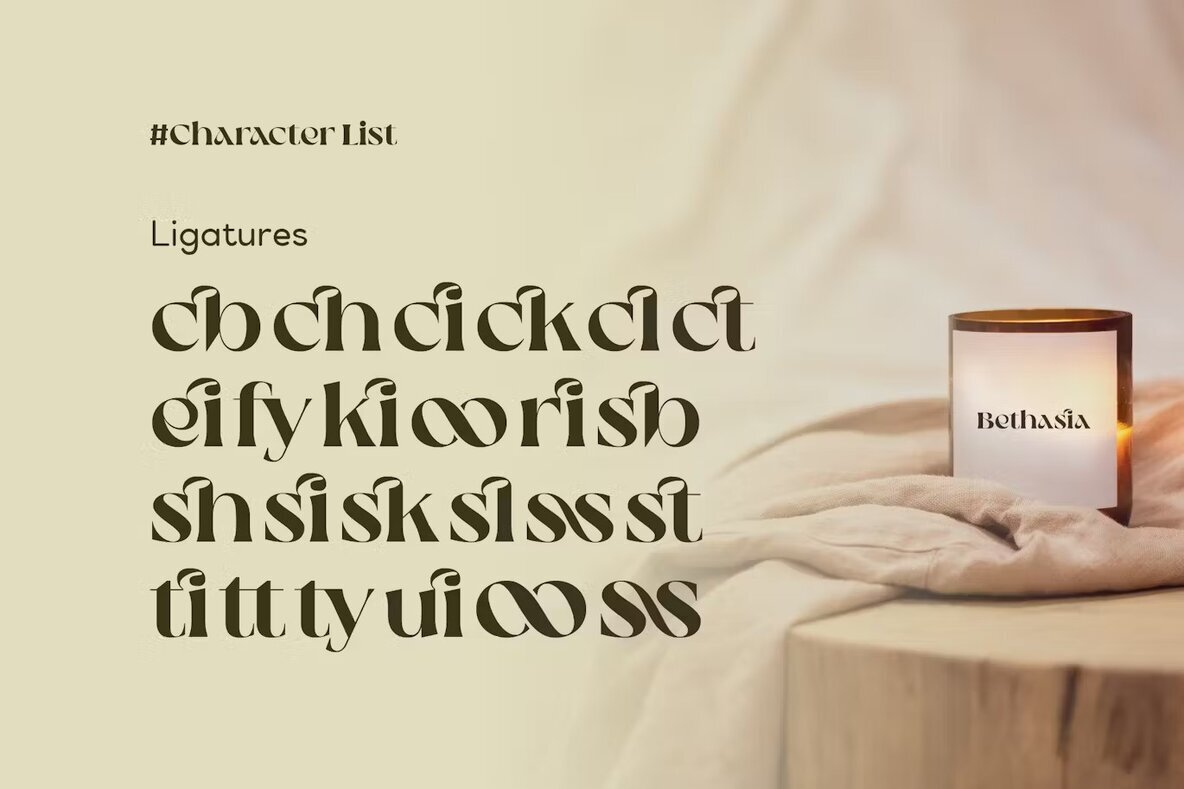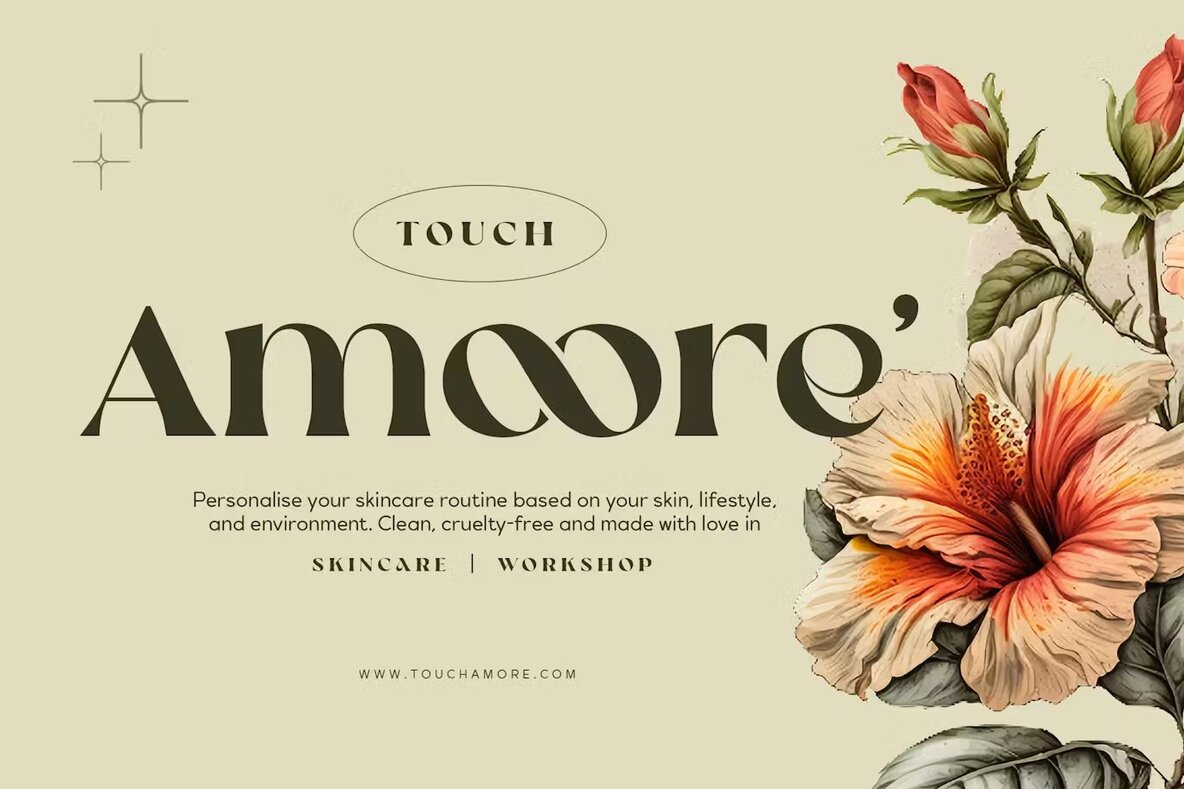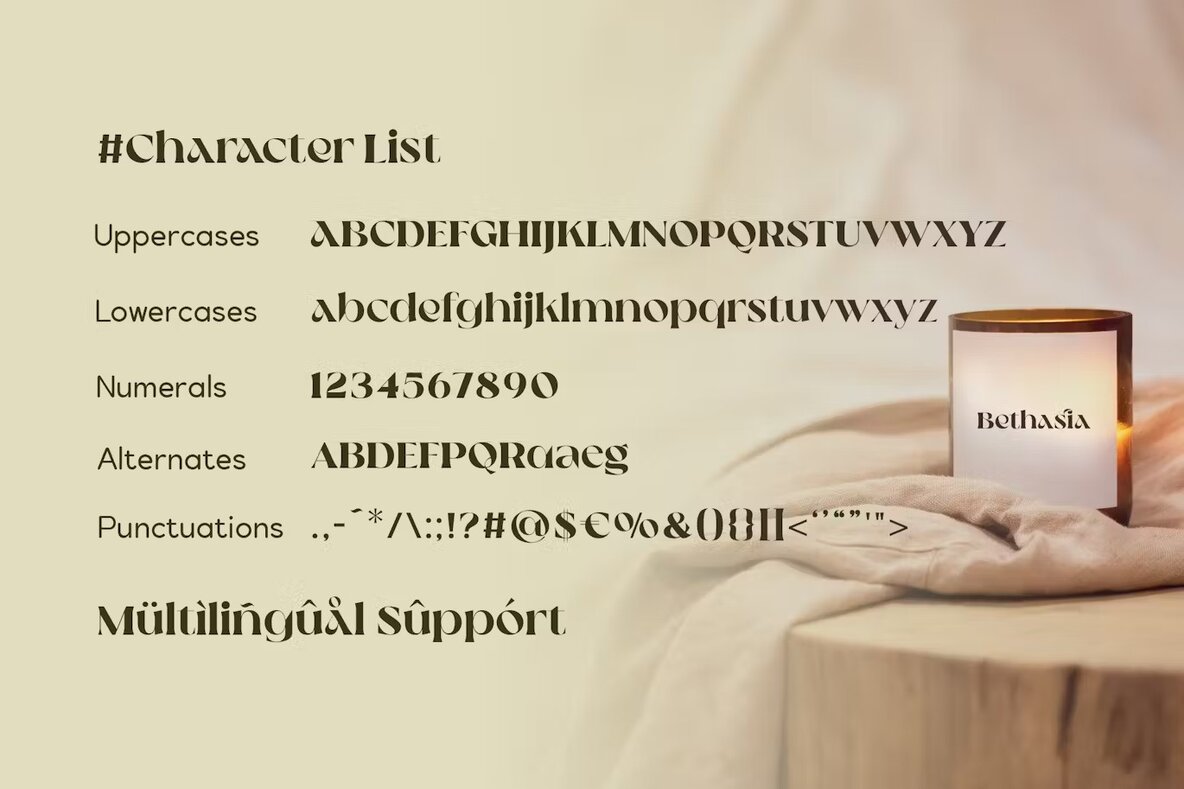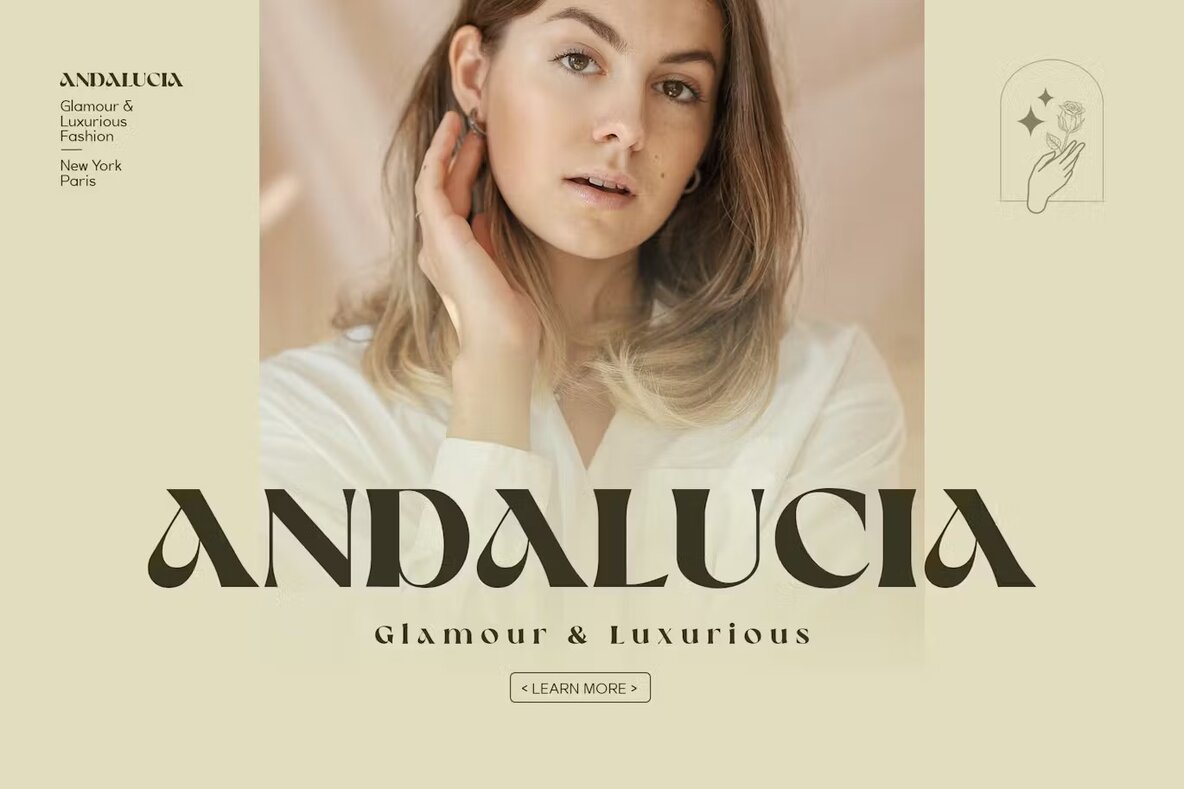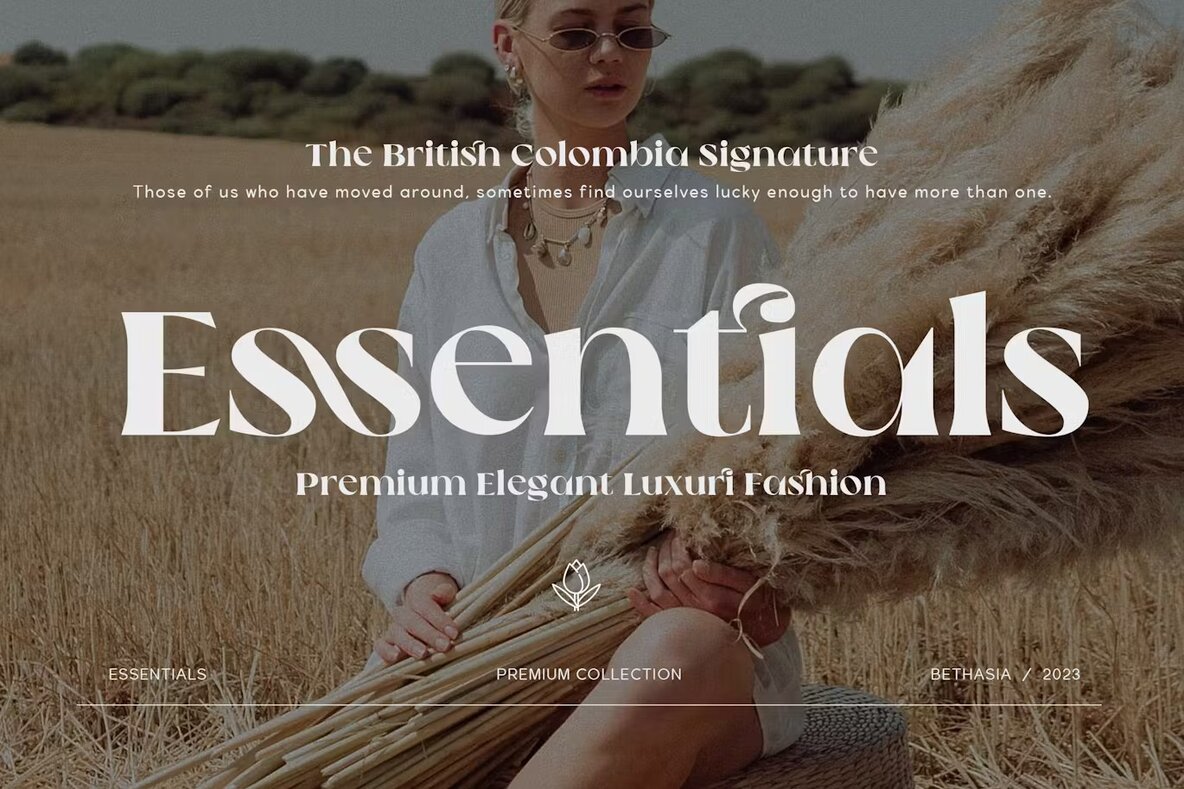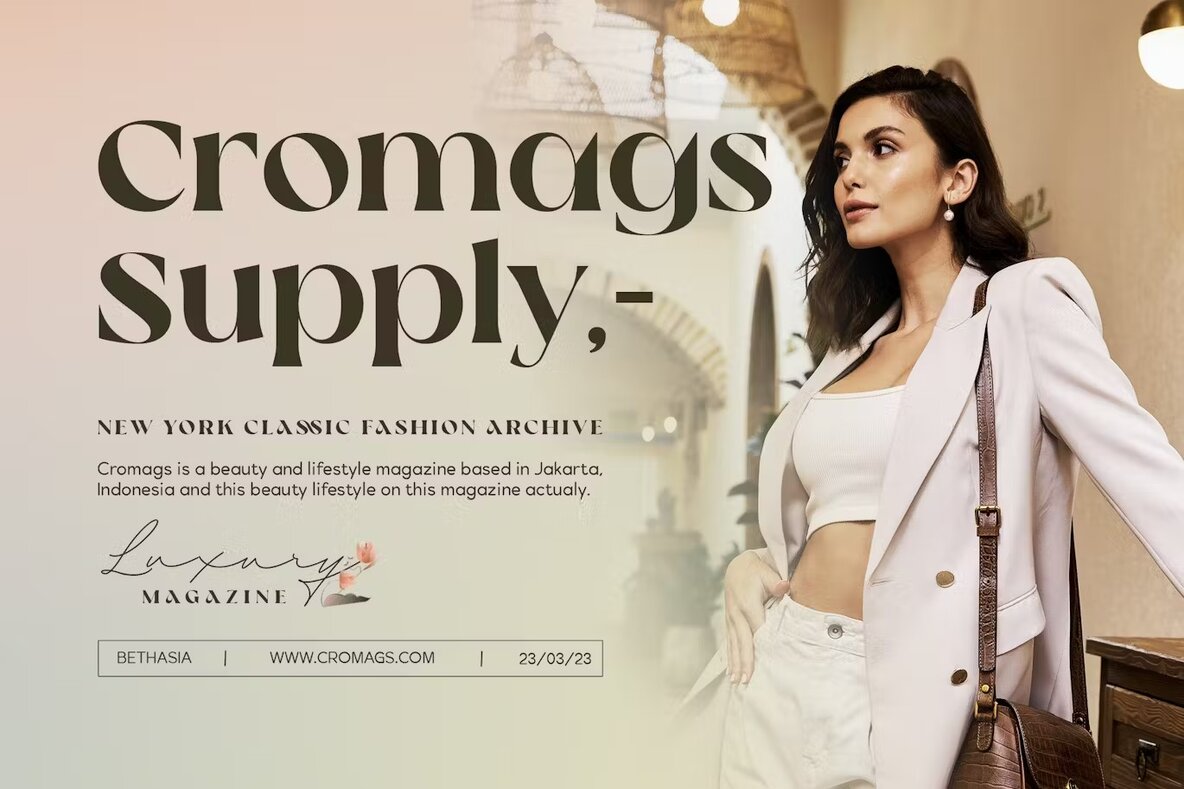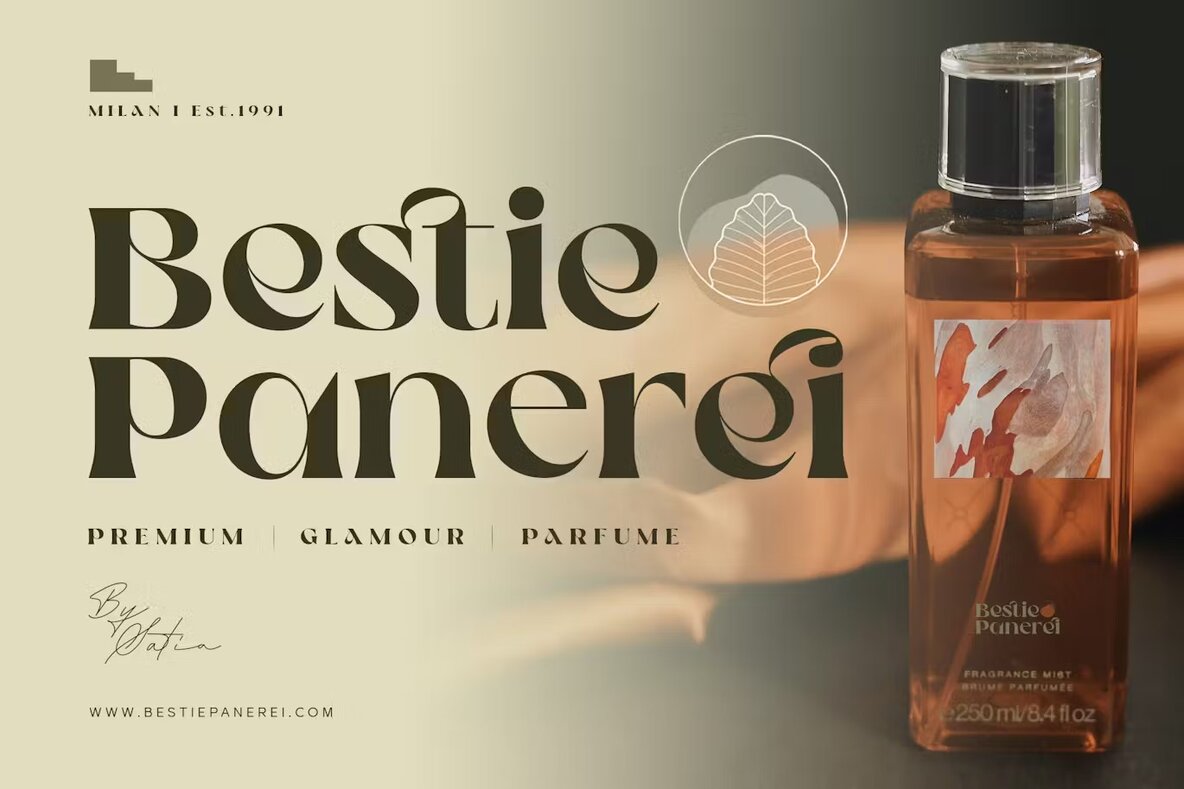
Bethasia Font
Bethasia Regular
Bethasia Serif is a modern contrast sans-serif font that exudes classic beauty and sophistication. Its clean, refined design makes it ideal for various applications including wedding invitations, branding, logos, and editorial design. This font features a harmonious balance of thick and thin strokes, creating a striking contrast that adds an extra touch of elegance to any project.
Bethasia Serif stands out with its unique ligatures, discretionary ligatures, and alternates, giving your designs a distinct and sophisticated look. Its timeless, romantic style captures the essence of elegance, making it the perfect choice for setting the tone on special occasions. Incorporate Bethasia Serif into your designs for a refined and stylish aesthetic.